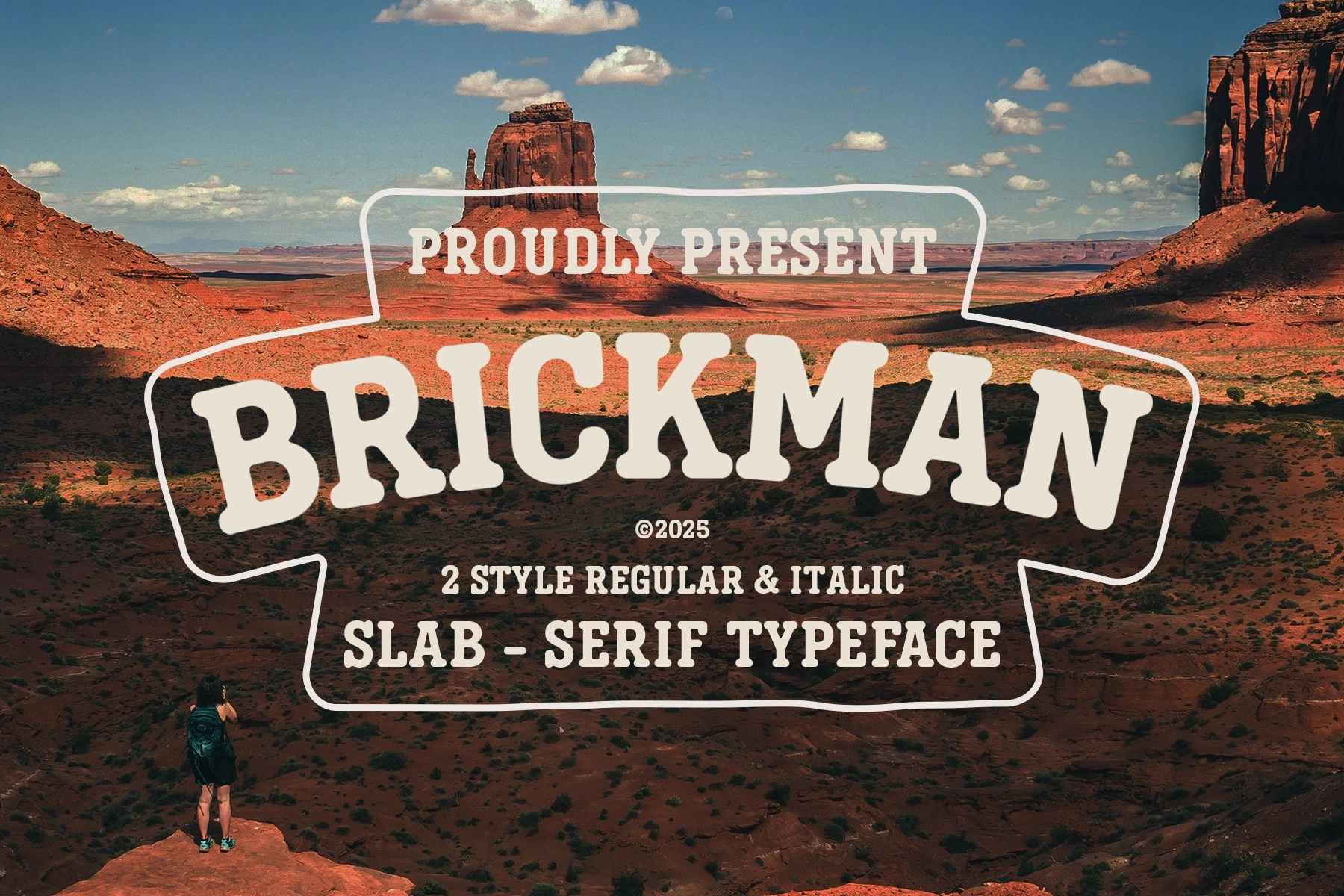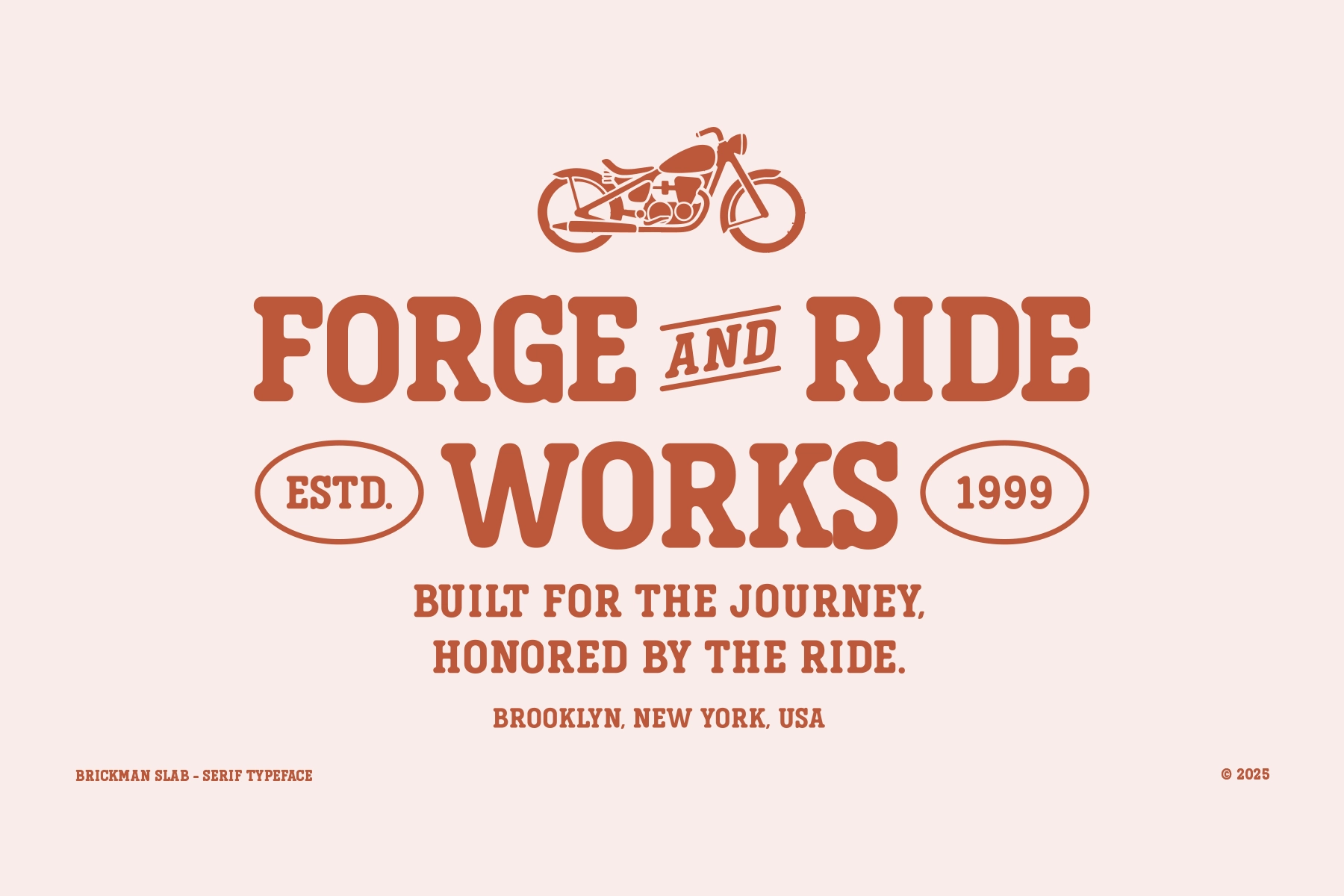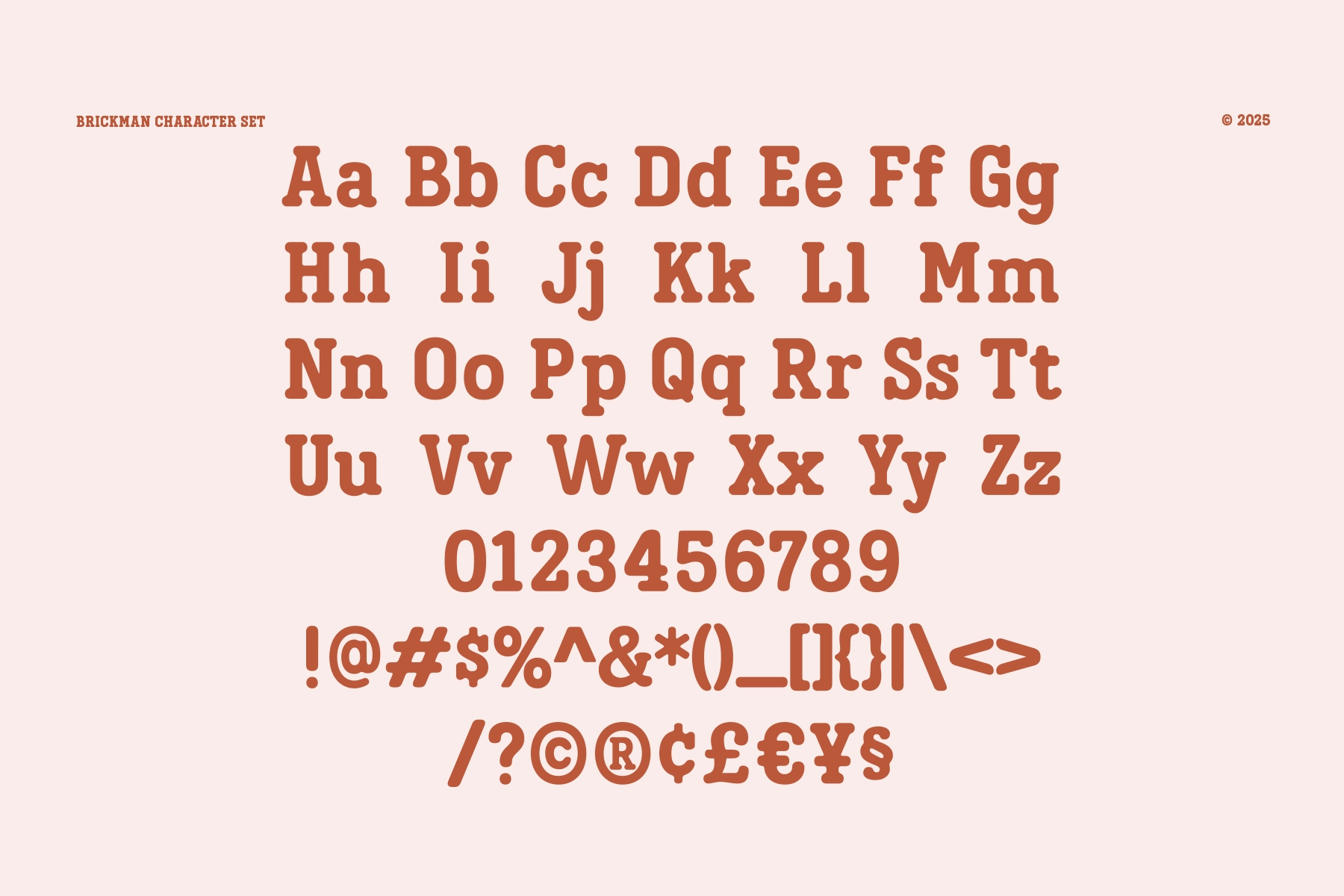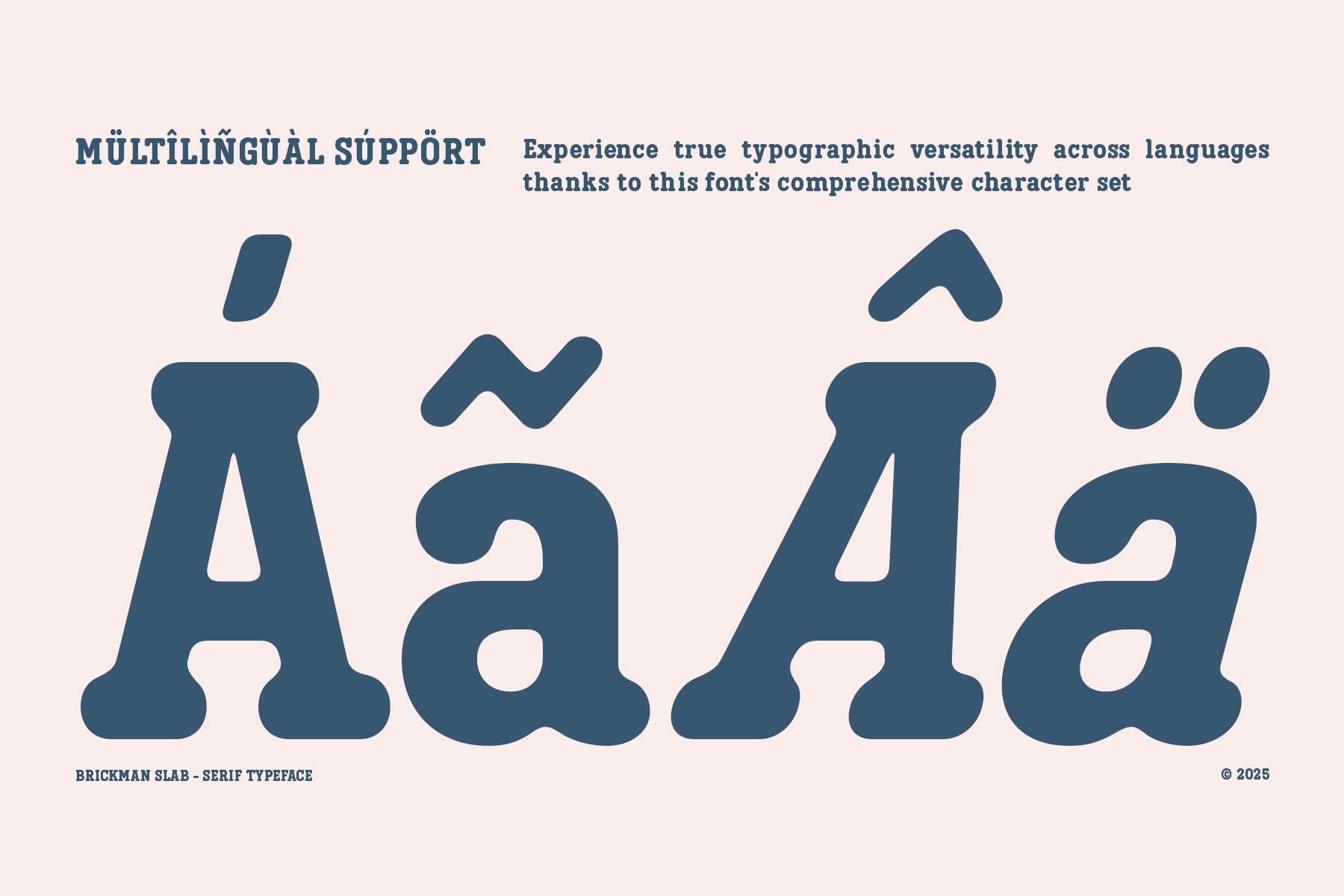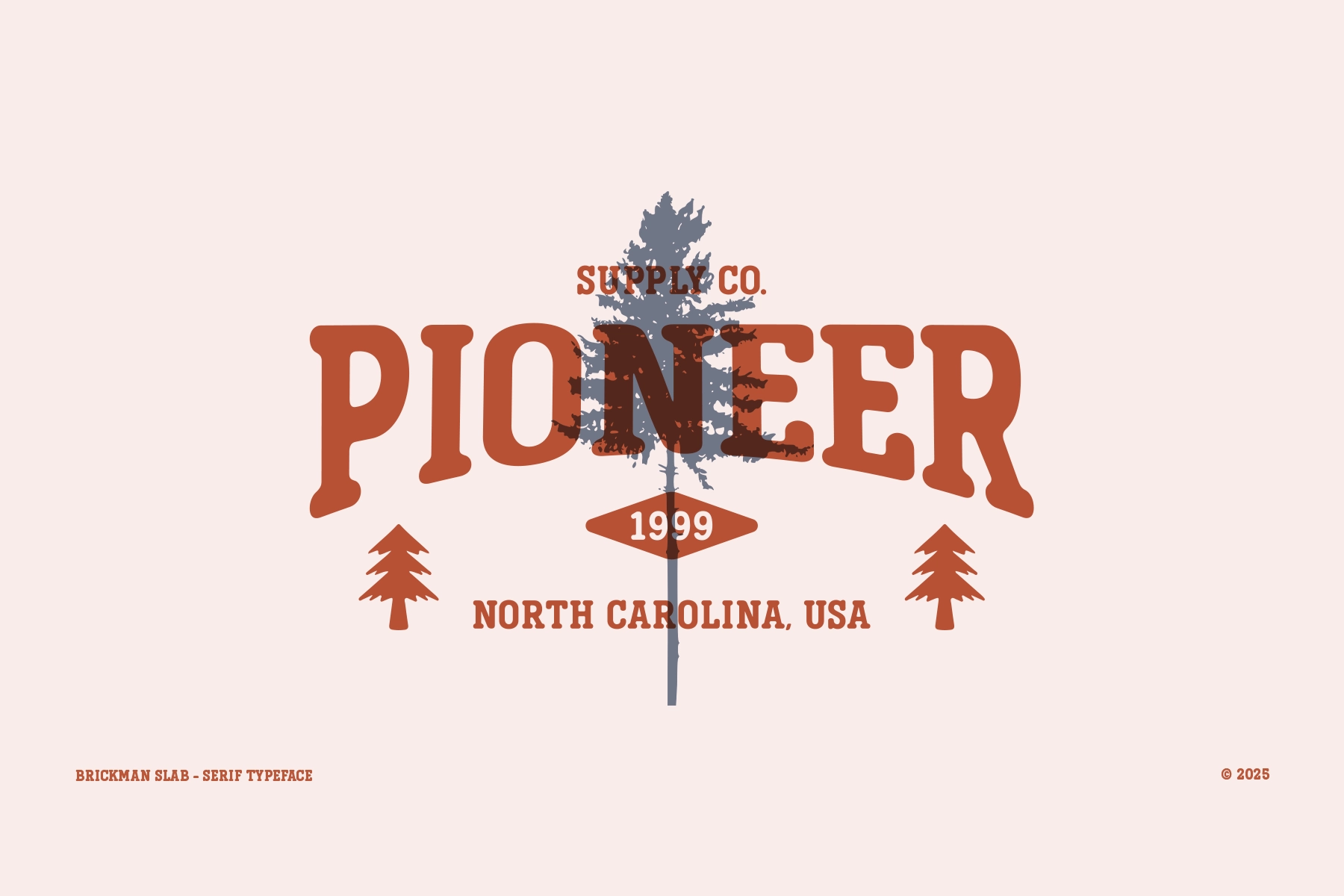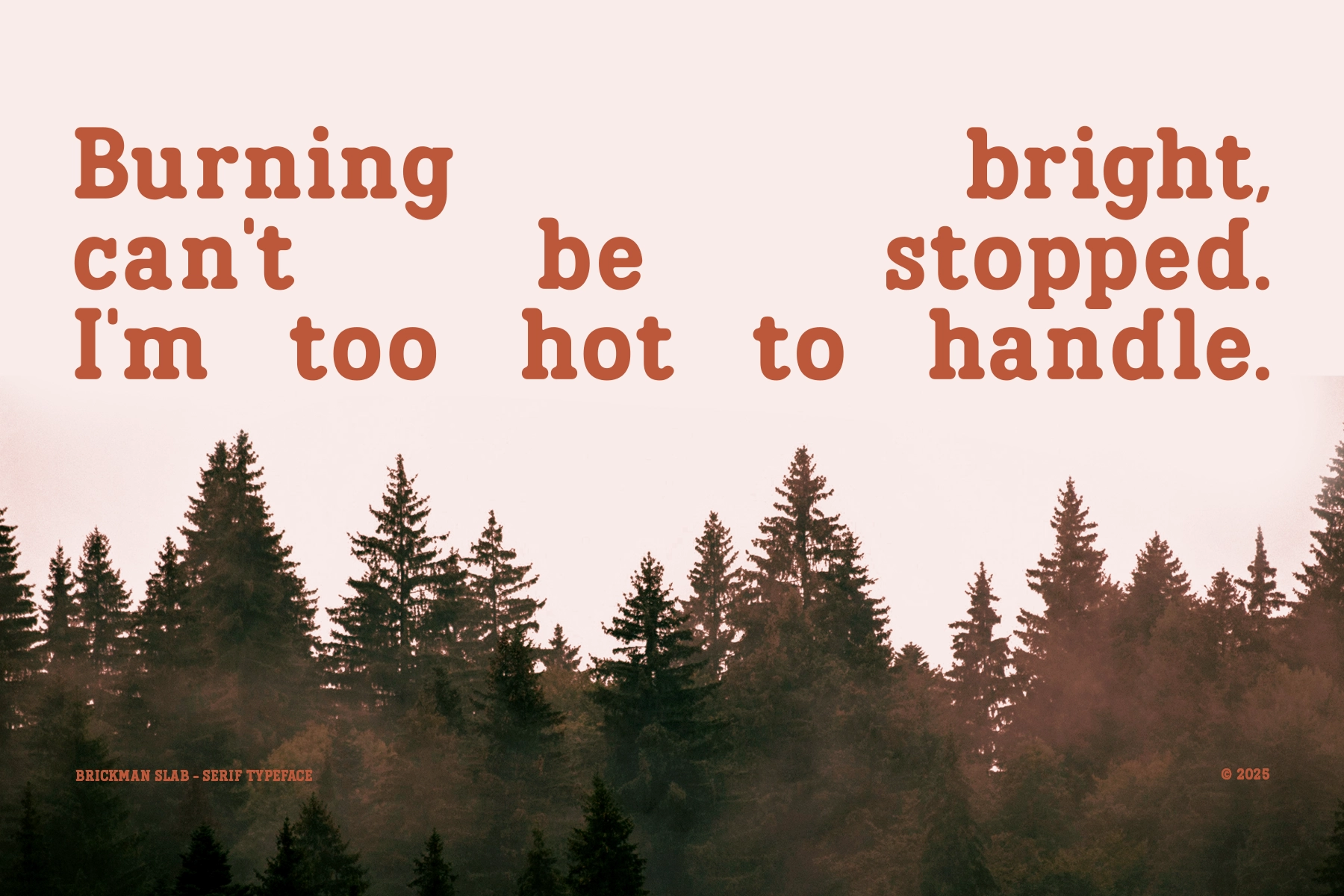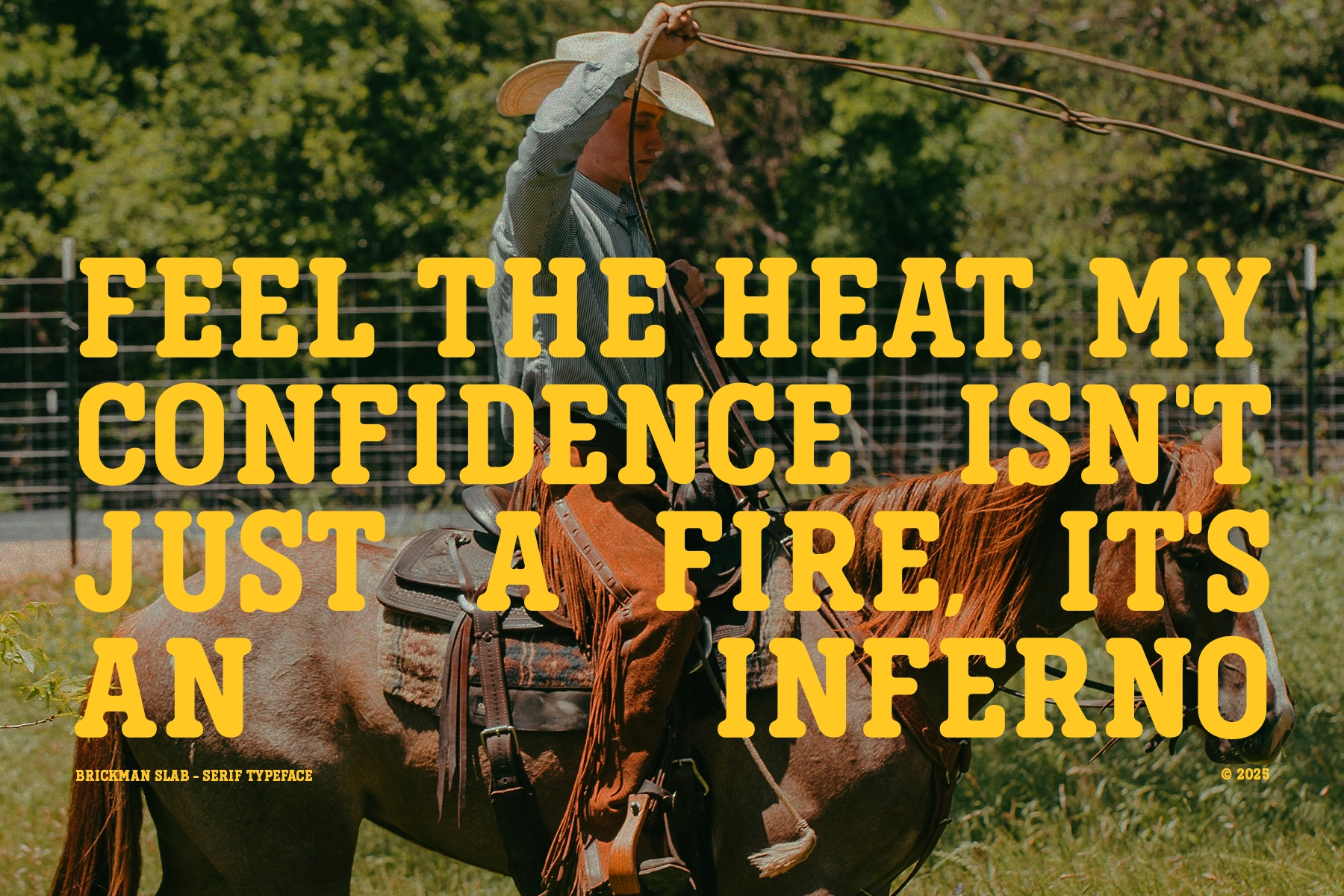
Brickman - Bold Slab Serif Typeface
Brickman - Bold Slab Serif Typeface is a powerful display font that combines strength, confidence, and timeless vintage charm. With sturdy letterforms, bold slab serifs, and subtly rounded terminals, it delivers a distinctive look that feels both classic and approachable.
Inspired by Wild West posters, vintage signage, and retro advertising, Brickman is perfect for branding, packaging, logos, and editorial designs that need a bold and nostalgic statement. With Regular and Italic styles, it offers flexibility for both strong headlines and expressive typography.
- Regular & Italic Styles
- Vintage Slab Serif Style